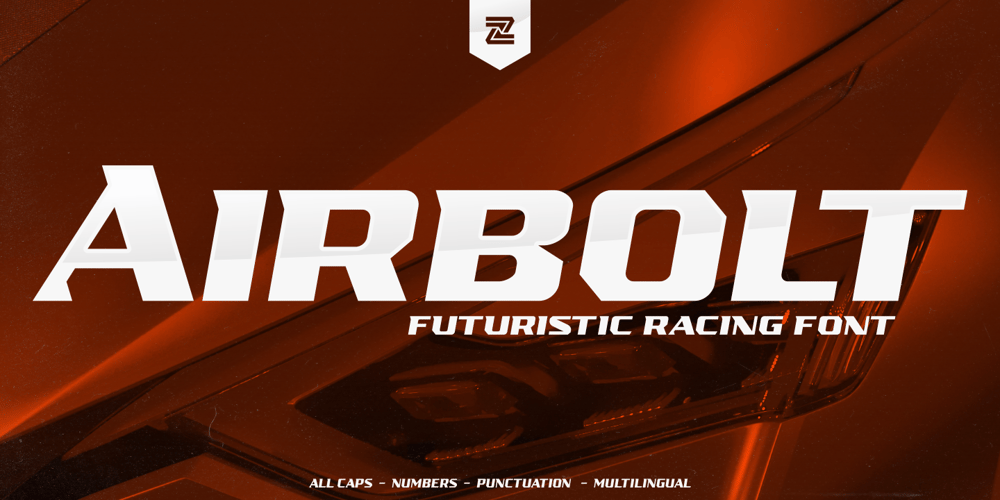
Airbolt Font Family was designed by Reza Rasenda and published by Zealab Fonts Division. Airbolt contains 1 styles and family package options. Airbolt is sporty, futuristic, and sharp font. It will make your design looks sporty and also futuristic design.Airbolt is a great fit for retro, futuristic, automotive, and gaming themed designs. Just look how it performs on the preview that I have provided, you will see its capabilities. But it will also work well with other themes.I can’t wait to see what you guys will come up with with using this font!